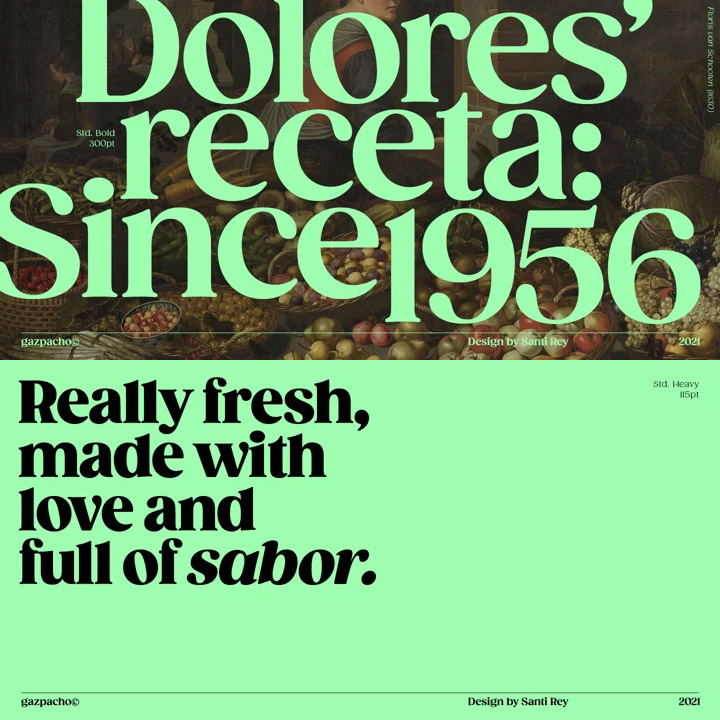
Download gazpacho fonts family from santi rey. Gazpacho contains 14 styles and family package options. Gazpacho is inspired by the serif typefaces used in editorial media in the 70s and 80s.
The Morphology Of The Letterforms Makes This Typeface Ideal For Display Purposes Like Logos And Big, Bold Headlines.
Complete family of 14 fonts: Check out examples of the gazpacho light font at azfonts. Gazpacho is inspired by the serif typefaces used in editorial media in the 70s and 80s.
The Font Designer Is Santi Rey.
Gazpacho is inspired by the serif typefaces used in editorial media in the 70s and 80s. The font designer is santi rey. The studio’s own identity uses optima nova as the prim
Gazpacho Is Inspired By The Serif Typefaces Used In Editorial Media In The 70S And 80S.
The morphology of the letterforms makes this typeface ideal for display purposes like logos and big, bold headlines. The morphology of the letterforms makes this typeface ideal for display purposes like logos and big, bold headlines. Gazpacho is inspired by the serif typefaces used in editorial media in the 70s and 80s.
Gazpacho Was Designed By Santi Rey And Published By Santi Rey.